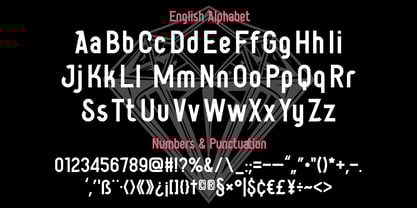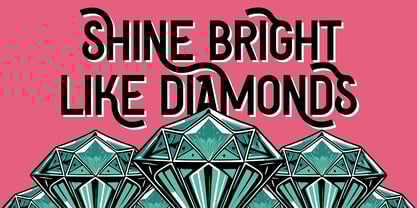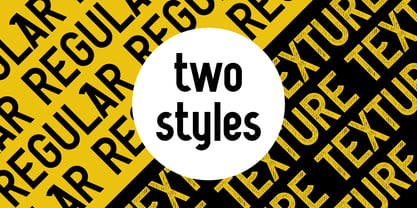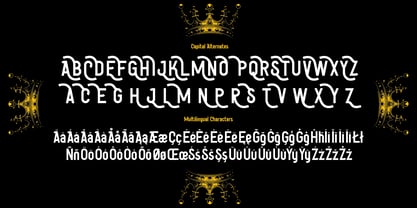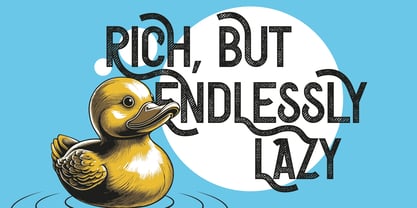
Rich And Lazy
by Vozzy
The Rich And Lazy Font Family was designed by Oleg Voznyy and published by Vozzy. Rich And Lazy contains 2 styles and family package options.
Introducing the original display font "Rich And Lazy" – a striking, handcrafted typeface designed to make a statement. It comes with extended characters, punctuation, and full multilingual support, making it a versatile choice for any creative project. A variety of alternate characters are included to give your text a personalized and dynamic look. Whether you're creating posters, flyers, branding, or T-shirt graphics, this font adds character and clarity to your design. "Rich And Lazy" was carefully drawn by hand to capture an authentic and expressive feel. Make your work stand out with this unique custom font.